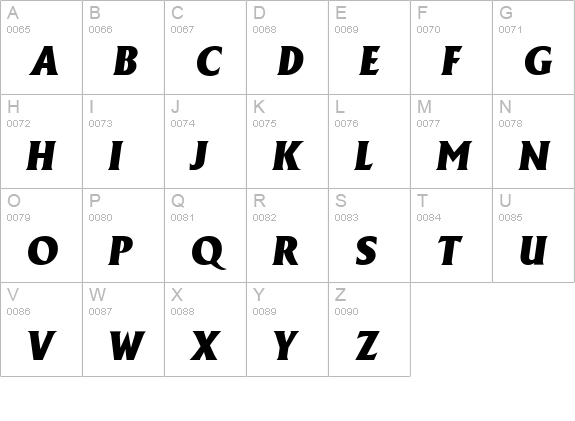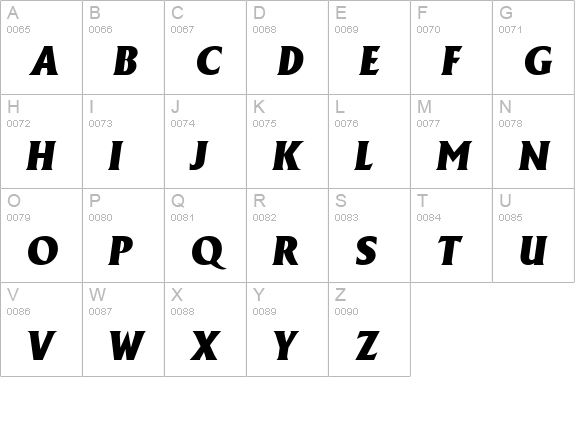
AdelonSerial-Heavy-Italic is a heavy, high-impact, italic variant in the AdelonSerial typeface family \xE2\x80\x94 well suited to high-impact headlines, posters, and display advertising.
AdelonSerial-Heavy-Italic is a striking and elegant typeface that exudes sophistication and modernity. Its bold italic design adds a touch of flair to any project, making it perfect for branding, advertising, and design applications that require a strong visual impact. This font features clean lines and sharp angles that give it a contemporary edge, while its heavy weight commands attention and makes a bold statement. AdelonSerial-Heavy-Italic is versatile and can be used for a wide range of design projects, from logos and headlines to packaging and editorial design. Best of all, AdelonSerial-Heavy-Italic is available for free download at FontsMarket.com. This means you can easily access this premium font without any cost, making it a valuable addition to your font library. Don't miss out on the opportunity to enhance your designs with the eye-catching and stylish AdelonSerial-Heavy-Italic font today!